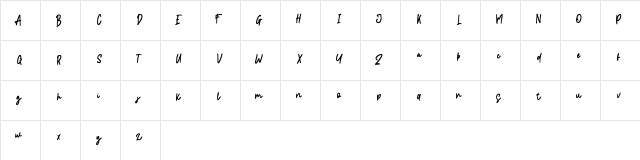
Smoothies Bucket Script
| Style | Script |
| Foundry | Crump Hand |
| Designer | Stefie Justprince |
Design Context for Smoothies Bucket Typeface
Smoothies Bucket brings a calligraphic fluidity to the page — its connecting strokes and expressive curves give it an unmistakably human quality.
Font Pairing: Combine Smoothies Bucket with a simple geometric sans for maximum contrast — the tension between flowing curves and clean structure is a classic typographic pairing.